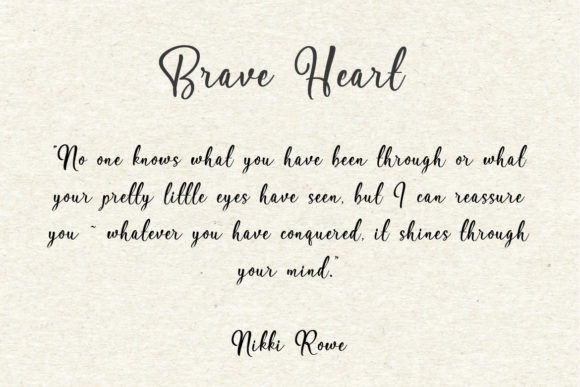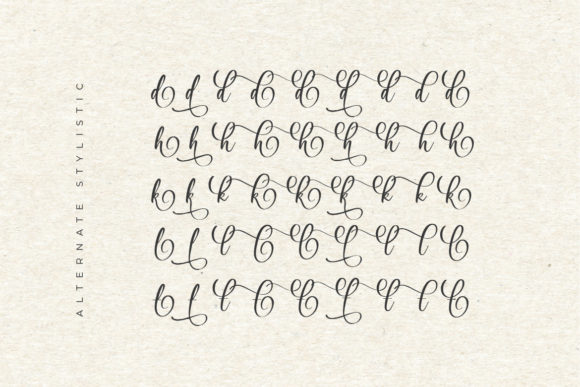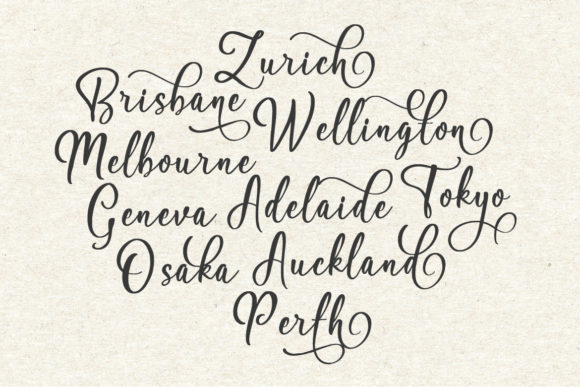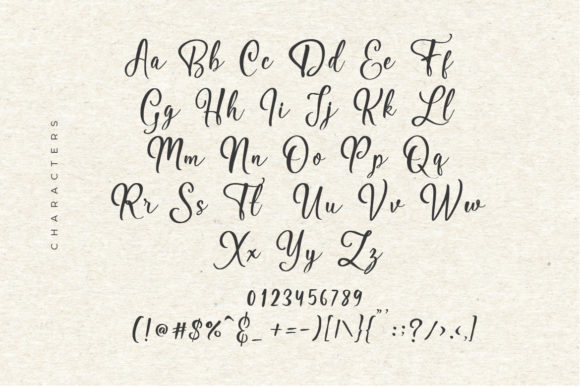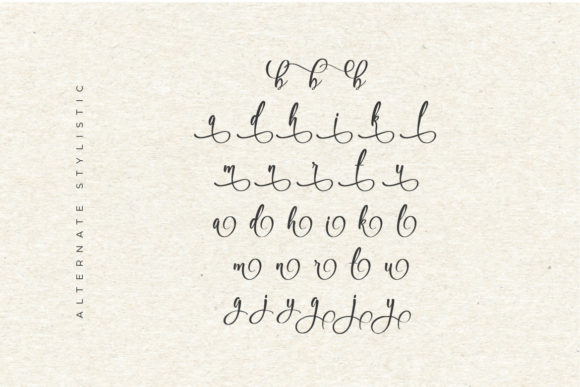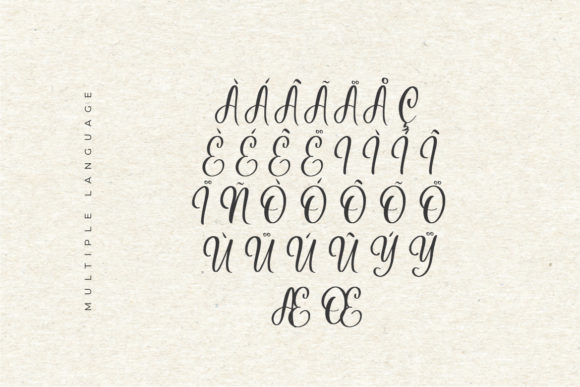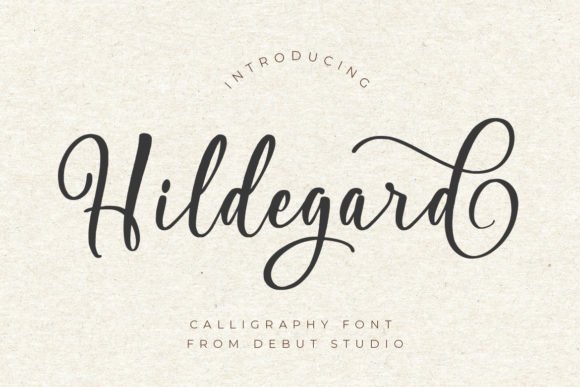
The Magic of Handwritten Beauty: Unlocking the Secrets of the Hildegard Script Font
As a designer, there’s nothing quite like the thrill of stumbling upon a font that speaks directly to your soul. For me, it was the moment I laid eyes on the Hildegard Script Font – a delicate, elegant script that seemed to dance across the page with effortless charm. I was hooked from the very first glance, and I knew I had to learn more about this captivating font.
With its ravishing style and versatility, the Hildegard Script Font is a treasure trove for designers looking to add a touch of sophistication and whimsy to their projects. Whether you’re crafting wedding invitations, designing beautiful stationery, or creating eye-catching social media posts, this font is sure to leave a lasting impression. Its value lies in its ability to evoke emotions and create a sense of connection with the viewer, making it an invaluable addition to any designer’s toolkit.
Hildegard Script Font Key Features
• Unique Characteristics: The Hildegard Script Font features a beautiful, handwritten style with subtle flair and elegance, making it perfect for adding a touch of sophistication to any design.
• Stylistic Sets: The font includes 2 stylistic sets, which allow designers to create unique variations and add an extra layer of personality to their designs.
• Smart Swashes: The Hildegard Script Font includes smart swashes, which enable designers to create beautiful, connected letterforms that add a touch of whimsy and flair to their designs.
Hildegard Script Font Review
Overall, I’m impressed with the elegant and refined aesthetic of the Hildegard Script Font. ✨ It’s perfect for creating a sophisticated and luxurious feel in your designs. ✨ The flowing connections between letters and subtle flourishes add a touch of whimsy and romance, making it ideal for wedding invitations, greeting cards, and other special occasions.
The font’s script nature lends itself well to handwritten-style typography, and the high-quality design ensures that it looks beautiful at various sizes and resolutions. ✨ I’ve also found that it pairs well with a range of other fonts, from serif and sans-serif to script and display fonts.
• ⚠️ Not ideal for body text: While the font is perfect for headings and titles, it may not be the best choice for large blocks of body text due to its flowing script nature.
• ⚠️ May require adjustments: Depending on your design, you may need to adjust the font’s spacing or kerning to get the best results.
Overall, I’m a big fan of the Hildegard Script Font. While it has some limitations, its unique aesthetic and high-quality design make it a valuable addition to any designer’s toolkit.
The Hildegard Script font is perfect for creating elegant and sophisticated designs, such as:
Formal event invitations
Branding and logo designs
Editorial and literary publications
Remember to use the Hildegard Script font in moderation, as it can be quite ornate and may overwhelm the design if overused.